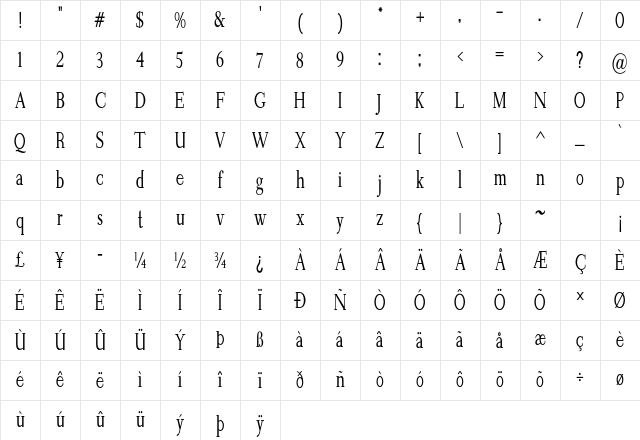
Wentworth Condensed Bold
Style: Condensed Bold
Wentworth Family
Wentworth Condensed Bold
Design Context for Wentworth
Wentworth is a composed and adaptable typeface that performs quietly and consistently across a wide range of design contexts. Its bold stroke weight gives it real presence on the page. Its narrow stance lets it pack a punch even in space-constrained designs.